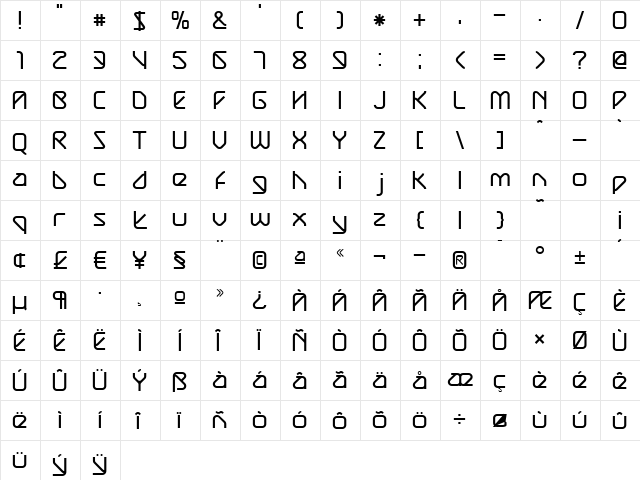
Exhaust Regular
Design Context for Exhaust Typeface
Exhaust takes a measured approach to typography — its balanced proportions and neutral character make it a reliable workhorse for both digital and print work.
Pro Tip: Pair Exhaust with a font of contrasting weight or personality to build a more expressive typographic hierarchy.